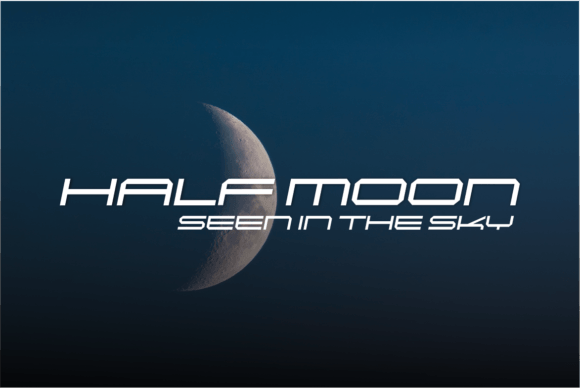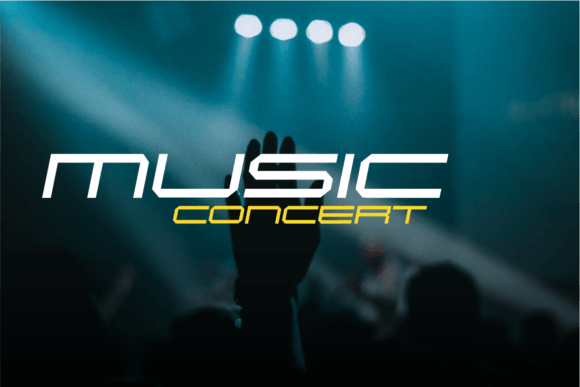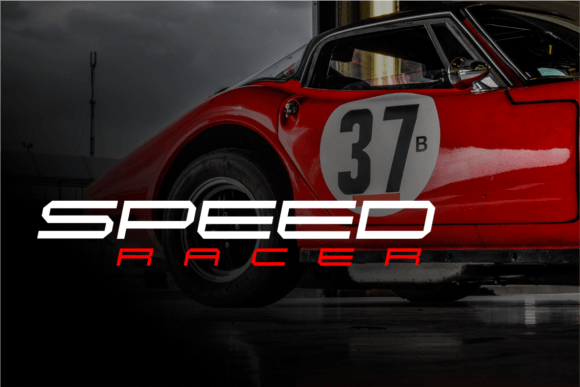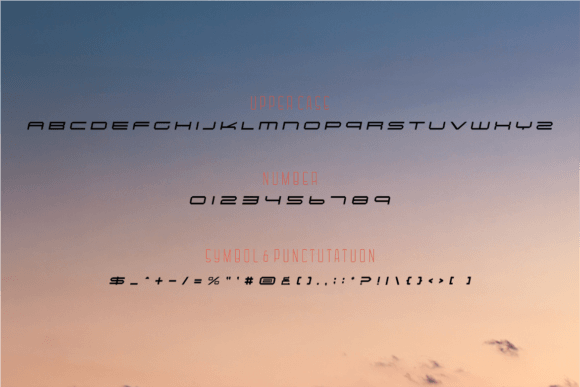
Introduction to Sainof Font
Have you ever been in a rush to meet a design deadline, only to find that the perfect font is nowhere to be found? This has happened to the best of us. But what if I told you that there’s a solution that can save your sanity and elevate your designs to the next level? Enter the Sainof Font, a stunning sans serif font that’s perfect for any creative project.
With its elegant and modern design, Sainof Font is a valuable resource for designers looking to add a touch of sophistication to their work. Whether you’re designing book covers, magazines, or social media posts, this font is sure to impress. Plus, with a transparent background and high quality design, it’s easy to see why Sainof Font is a top choice among designers.
Key Features of Sainof Font
- High-Quality Design Resource: Sainof Font is a premium font designed for creative projects, offering a unique and elegant style.
- Transparent Background: This font features a transparent background, making it ideal for use on various backgrounds and design elements.
- Perfect for Creative Projects: This font is designed specifically for use in creative projects, including graphic design, digital art, and typography-based art.
Honest Review: Sainof Font
I recently had the opportunity to work with the Sainof Font, and I must say it’s been a game-changer for my design projects. The first thing I noticed was the high quality of the font, which made it perfect for use on both light and dark backgrounds. ✨
One of the things I appreciated most about the Sainof Font was its versatility. It’s available for free download, making it an excellent addition to any designer’s resource library. Plus, it’s incredibly easy to use, with a clean and simple design that’s perfect for a variety of creative projects.
- Transparent background option for added flexibility
- High-resolution design for crisp, clear text
- Simple, modern design that’s perfect for creative projects
While the Sainof Font is an excellent choice for many designers, I did encounter a few limitations. ⚠️ The font is not as extensive as some other options, with a limited character set that may not be suitable for complex projects.
Overall, I’m really impressed with the Sainof Font. It’s a high-quality design resource that’s perfect for a wide range of creative projects. Whether you’re a seasoned designer or just starting out, I highly recommend giving it a try.
To get the most out of the Sainof Font, use it in creative projects that require a clean and modern look. Common use cases include logo design, branding, and digital marketing materials.